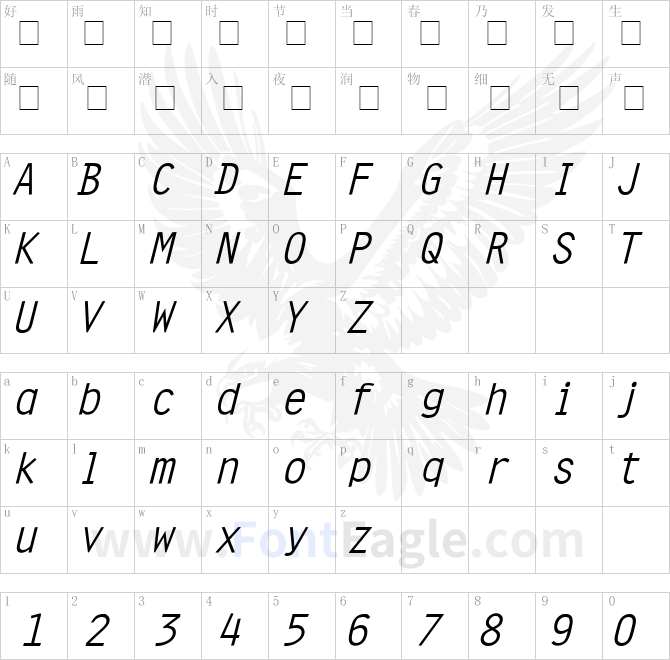
Clean-Italic is a great font, widely used in graphic design, single-page menu design, poster design and other fields, and is deeply loved by designers.Clean-Italic download.